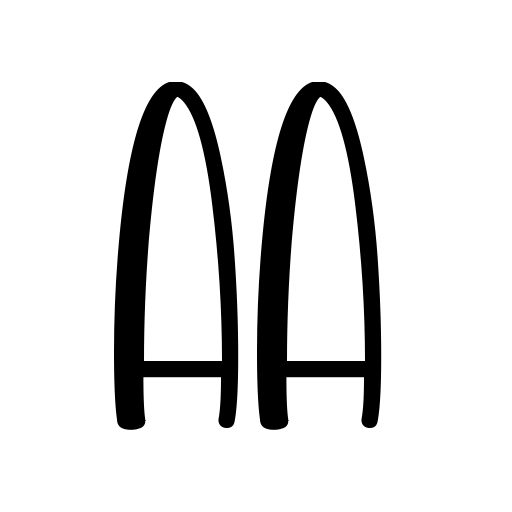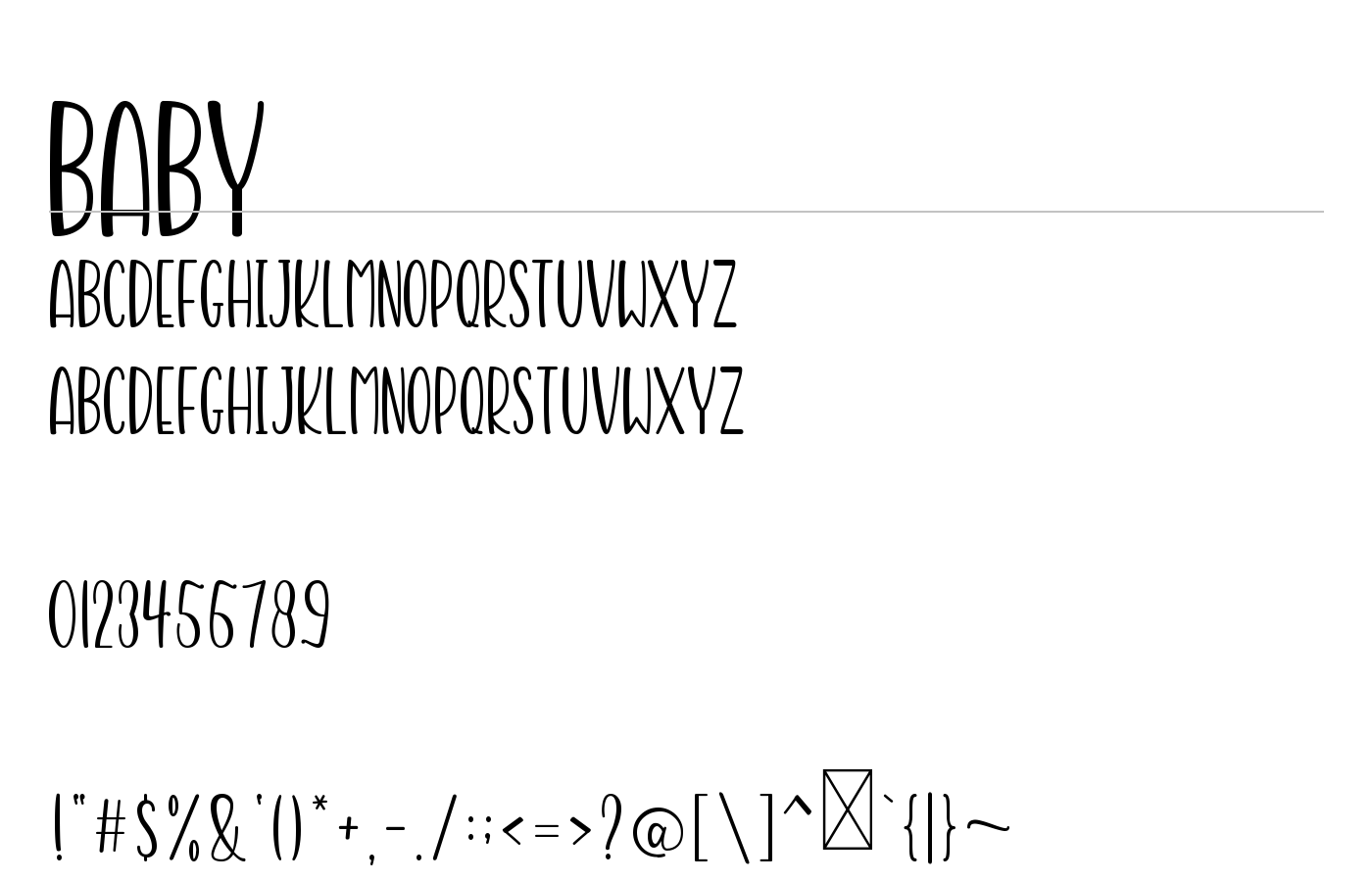
Baby Font is a tall, narrow handwritten sans serif with a playful and casual feel. Its slender, slightly irregular letterforms give it a friendly, approachable personality perfect for informal designs, children’s content, and creative projects that need a touch of whimsy. This font works well in headlines, logos, and packaging where a lighthearted, unique style is desired.
Baby Font
About Baby Font